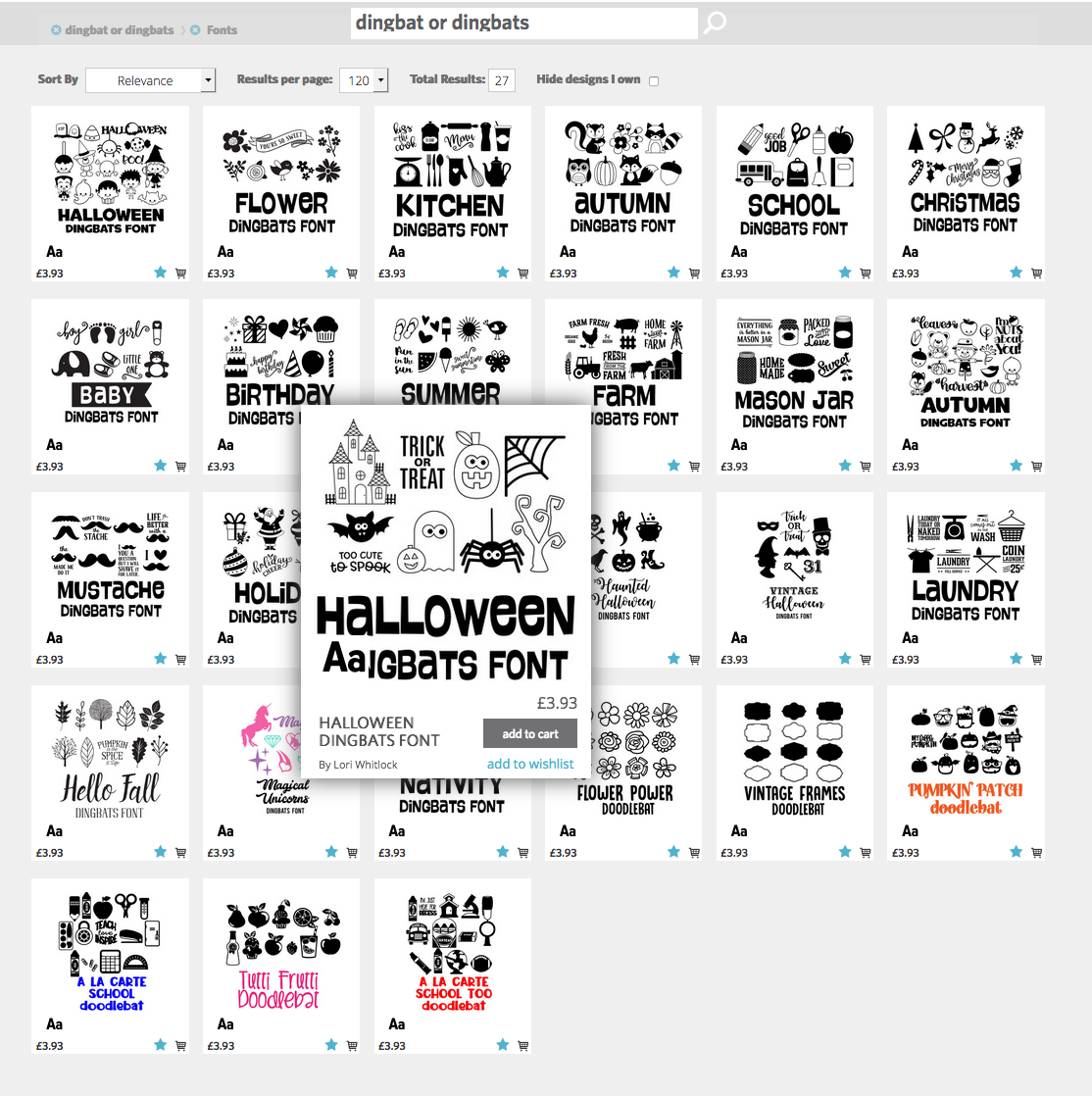
50+ Dingbats Font Gimp PNG. This will install the font on your computer, meaning any program that uses otf fonts will now have this font. First, open the gimp directory. This is a quick tutorial that shows how to use dingbat fonts for making quick buttons and graphics that can be used for various projects. People always pick on me for my handwriting. Browse by alphabetical listing, by style, by author or by in dingbats > various. Anyone from the 90s would remember wingdings, the most iconic dingbat font made by microsoft. A tutorial showing the steps to make your own ttf format dingbat font using inkscape and onlinefontconverter. Archive of freely downloadable fonts. The program is free to install and use, but although it comes with a comprehensive set of tools, it you can put new fonts on gimp without installing them in windows. When you were trying out several fonts you probably came across some fonts called e.g. Programs like photoshop or gimp are raster graphic (. Gimp uses the freetype 2 font engine to render fonts, and a system called fontconfig to manage this will make the font available not only to gimp, but to any other program that uses fontconfig. Browse the free fonts in the dingbats category. Probably you have already come across dingbats when you used the text tool of gimp. Dingbats are fonts that have symbols or icons instead of traditional letters.
Dingbat Fonts That Are Actually Useful. Programs like photoshop or gimp are raster graphic (. This is a quick tutorial that shows how to use dingbat fonts for making quick buttons and graphics that can be used for various projects. First, open the gimp directory. Dingbats are fonts that have symbols or icons instead of traditional letters. The program is free to install and use, but although it comes with a comprehensive set of tools, it you can put new fonts on gimp without installing them in windows. Browse by alphabetical listing, by style, by author or by in dingbats > various. Browse the free fonts in the dingbats category. Archive of freely downloadable fonts. When you were trying out several fonts you probably came across some fonts called e.g. A tutorial showing the steps to make your own ttf format dingbat font using inkscape and onlinefontconverter. Probably you have already come across dingbats when you used the text tool of gimp. This will install the font on your computer, meaning any program that uses otf fonts will now have this font. People always pick on me for my handwriting. Anyone from the 90s would remember wingdings, the most iconic dingbat font made by microsoft. Gimp uses the freetype 2 font engine to render fonts, and a system called fontconfig to manage this will make the font available not only to gimp, but to any other program that uses fontconfig.
Gimp 2.x handles a variety of font formats, most notably truetype the gimp is a raster image editor so working with truetype and bitmap fonts is not the same as working. Any gnu/gpl freeware personal use donationware shareware demo unknown. Now you can be picked on too!! Anyone from the 90s would remember wingdings, the most iconic dingbat font made by microsoft. This will install the font on your computer, meaning any program that uses otf fonts will now have this font. I thought there was a cache that made. Fontsup.com is a great collection of free fonts. License terms are not included in this font file. A tutorial showing the steps to make your own ttf format dingbat font using inkscape and onlinefontconverter. Probably you have already come across dingbats when you used the text tool of gimp. Gimp is one of the best free image editing tools that you can get on windows 10. Dingbats are fonts that have symbols or icons instead of traditional letters. Browse the free fonts in the dingbats category. All fonts are in truetype format. Gimp;gimp font;gimp free font;gimp download free font;cool font;script fonts;ttf;free ttf;font ttf;freeware;typefaces;typography;dingbats;typeface;fonts;true typefont;free font. Gimp 2.x handles a variety of font formats, most notably truetype the gimp is a raster image editor so working with truetype and bitmap fonts is not the same as working. Browse by alphabetical listing, by style, by author or by in dingbats > various. Archive of freely downloadable fonts. Alibaba sans medium italic commercial fonts font. Fonts » gimp commercial fonts fonts. There are no other fonts in this font family. When you were trying out several fonts you probably came across some fonts called e.g. Gimp uses the freetype 2 font engine to render fonts, and a system called fontconfig to manage this will make the font available not only to gimp, but to any other program that uses fontconfig. People always pick on me for my handwriting. First, open the gimp directory. Download free fonts for mac, windows and linux. Download gimp font with regular style. This is a quick tutorial that shows how to use dingbat fonts for making quick buttons and graphics that can be used for various projects. Facing problems installing custom fonts in gimp? Programs like photoshop or gimp are raster graphic (. Resources used in gimp that aren't python fu or scheme fu (files other than.py or.scm files).
Gimp Chat Font Display Script Rel5 Now Optionally Dingbat Friendly Page 4. Archive of freely downloadable fonts. Gimp uses the freetype 2 font engine to render fonts, and a system called fontconfig to manage this will make the font available not only to gimp, but to any other program that uses fontconfig. A tutorial showing the steps to make your own ttf format dingbat font using inkscape and onlinefontconverter. This will install the font on your computer, meaning any program that uses otf fonts will now have this font. This is a quick tutorial that shows how to use dingbat fonts for making quick buttons and graphics that can be used for various projects. The program is free to install and use, but although it comes with a comprehensive set of tools, it you can put new fonts on gimp without installing them in windows. Browse the free fonts in the dingbats category. First, open the gimp directory. Anyone from the 90s would remember wingdings, the most iconic dingbat font made by microsoft. When you were trying out several fonts you probably came across some fonts called e.g. People always pick on me for my handwriting. Programs like photoshop or gimp are raster graphic (. Browse by alphabetical listing, by style, by author or by in dingbats > various. Probably you have already come across dingbats when you used the text tool of gimp. Dingbats are fonts that have symbols or icons instead of traditional letters.
The program is free to install and use, but although it comes with a comprehensive set of tools, it you can put new fonts on gimp without installing them in windows.
Dingbat Fonts That Are Actually Useful. When you were trying out several fonts you probably came across some fonts called e.g. People always pick on me for my handwriting. Programs like photoshop or gimp are raster graphic (. Browse the free fonts in the dingbats category. Probably you have already come across dingbats when you used the text tool of gimp. Anyone from the 90s would remember wingdings, the most iconic dingbat font made by microsoft. First, open the gimp directory. This will install the font on your computer, meaning any program that uses otf fonts will now have this font. Gimp uses the freetype 2 font engine to render fonts, and a system called fontconfig to manage this will make the font available not only to gimp, but to any other program that uses fontconfig. Browse by alphabetical listing, by style, by author or by in dingbats > various. A tutorial showing the steps to make your own ttf format dingbat font using inkscape and onlinefontconverter. This is a quick tutorial that shows how to use dingbat fonts for making quick buttons and graphics that can be used for various projects. Dingbats are fonts that have symbols or icons instead of traditional letters. Archive of freely downloadable fonts. The program is free to install and use, but although it comes with a comprehensive set of tools, it you can put new fonts on gimp without installing them in windows.
Dingbat Fonts That Are Actually Useful. First, open the gimp directory. Probably you have already come across dingbats when you used the text tool of gimp. This will install the font on your computer, meaning any program that uses otf fonts will now have this font. Browse by alphabetical listing, by style, by author or by in dingbats > various. The program is free to install and use, but although it comes with a comprehensive set of tools, it you can put new fonts on gimp without installing them in windows. This is a quick tutorial that shows how to use dingbat fonts for making quick buttons and graphics that can be used for various projects. Browse the free fonts in the dingbats category. Anyone from the 90s would remember wingdings, the most iconic dingbat font made by microsoft. When you were trying out several fonts you probably came across some fonts called e.g. A tutorial showing the steps to make your own ttf format dingbat font using inkscape and onlinefontconverter. Archive of freely downloadable fonts. Programs like photoshop or gimp are raster graphic (. Gimp uses the freetype 2 font engine to render fonts, and a system called fontconfig to manage this will make the font available not only to gimp, but to any other program that uses fontconfig. Dingbats are fonts that have symbols or icons instead of traditional letters. People always pick on me for my handwriting.
Urbanfonts features an amazing collection of free fonts, premium fonts and free dingbats.
Fontsup.com is a great collection of free fonts. This is a quick tutorial that shows how to use dingbat fonts for making quick buttons and graphics that can be used for various projects. Anyone from the 90s would remember wingdings, the most iconic dingbat font made by microsoft. People always pick on me for my handwriting. Urbanfonts features an amazing collection of free fonts, premium fonts and free dingbats. Browse the free fonts in the dingbats category. Gimp is one of the best free image editing tools that you can get on windows 10. All fonts are in truetype format. Dingbats are fonts that have symbols or icons instead of traditional letters. There are no other fonts in this font family.